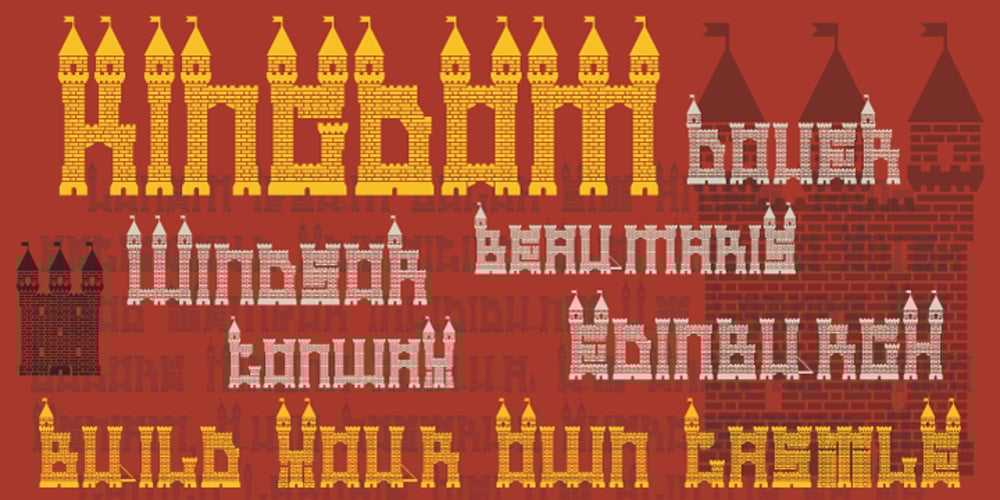
Kingdom
Kingdom font
Kingdom Font Family was designed by Wilson Thomas and published by Funk King. Kingdom contains 1 styles and family package options. Kingdom is a castle font. You can use the characters for display and build your own castle.